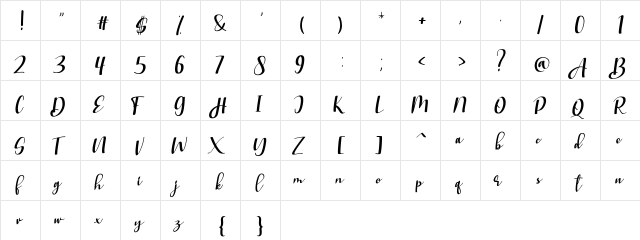
Stranggi FREE Regular
Design Context for Stranggi FREE Typeface
Stranggi FREE is a composed and adaptable typeface that performs quietly and consistently across a wide range of design contexts.